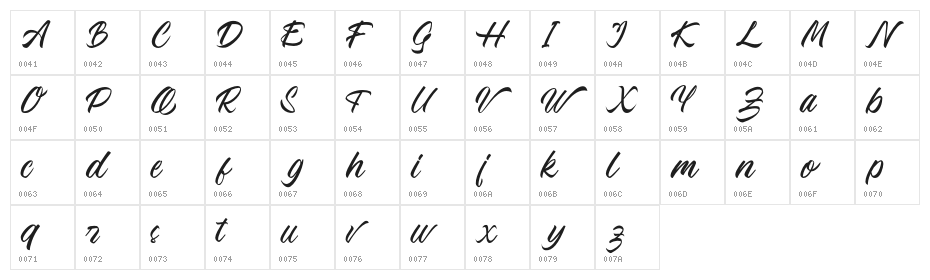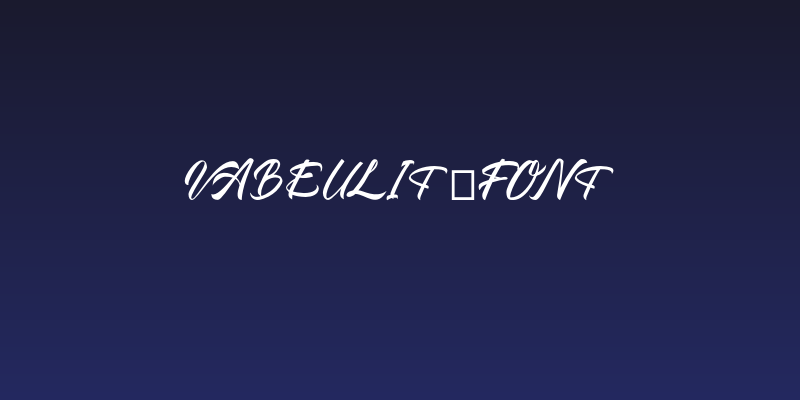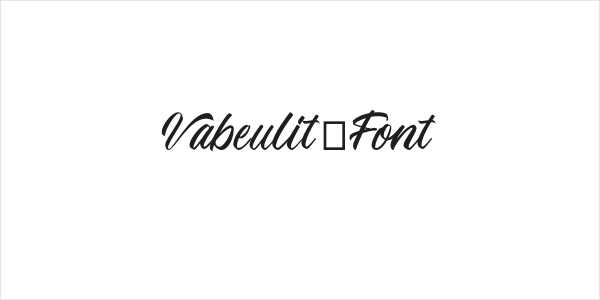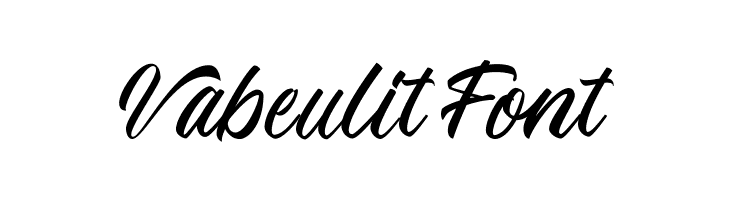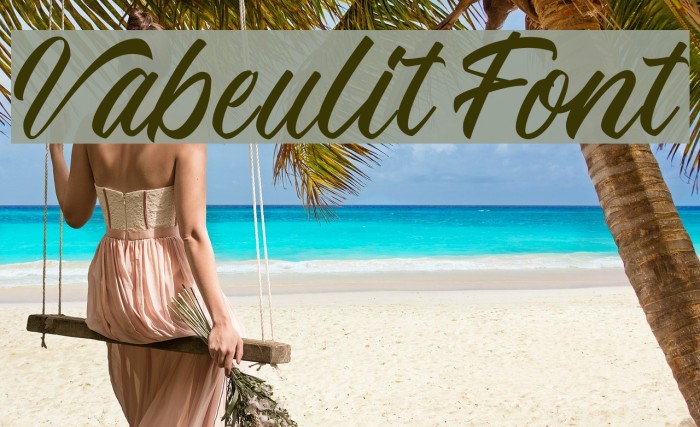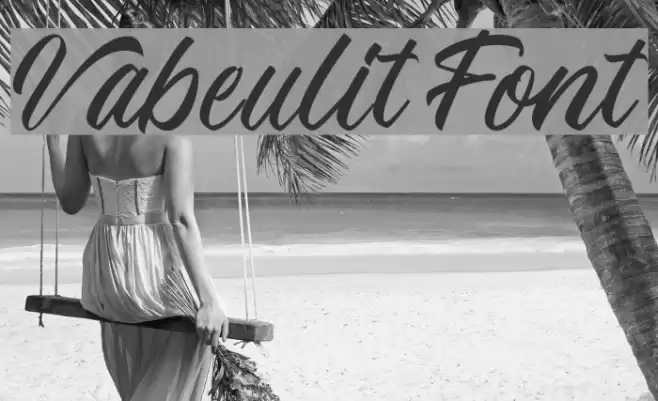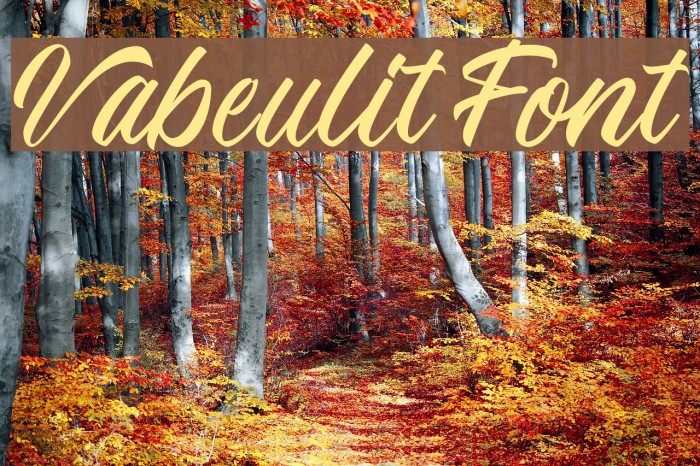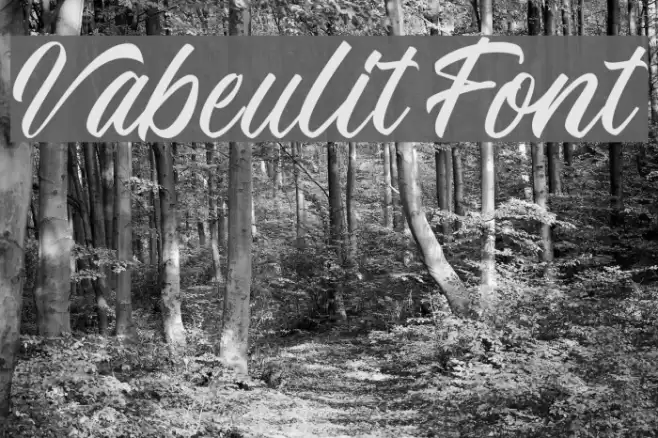
Vabeulit Font Description
This font features a dynamic and flowing script style, characterized by its elegant and cursive letterforms. The uppercase letters are bold and sweeping, with a sense of movement and grace. The lowercase letters maintain a consistent slant, enhancing the fluidity and continuity of the text. The strokes are thick and expressive, providing a strong visual impact. This font exudes a sense of sophistication and creativity, making it ideal for projects that require a personal and artistic touch. Its design is both modern and timeless, suitable for a variety of applications.
| Use Case | Logos, Invitations, Artistic projects |
| Proposed Projects | Ideal for wedding invitations, branding, logos, and artistic projects requiring a personal touch. |